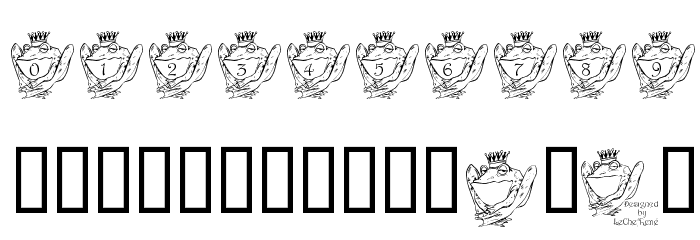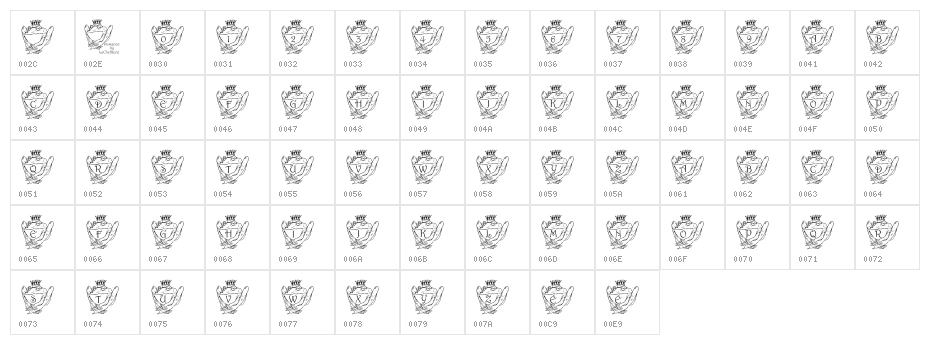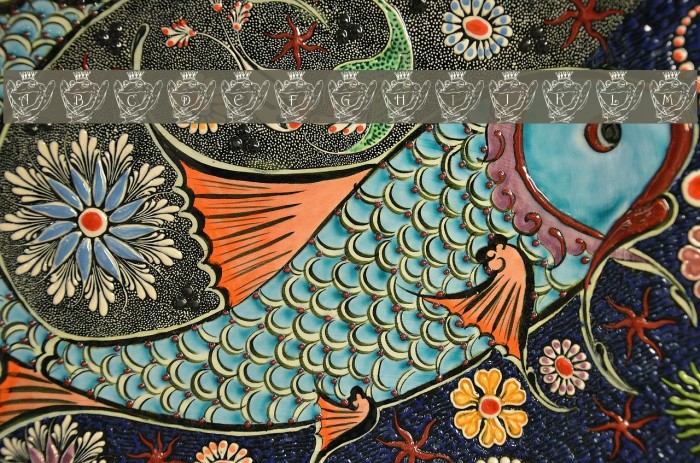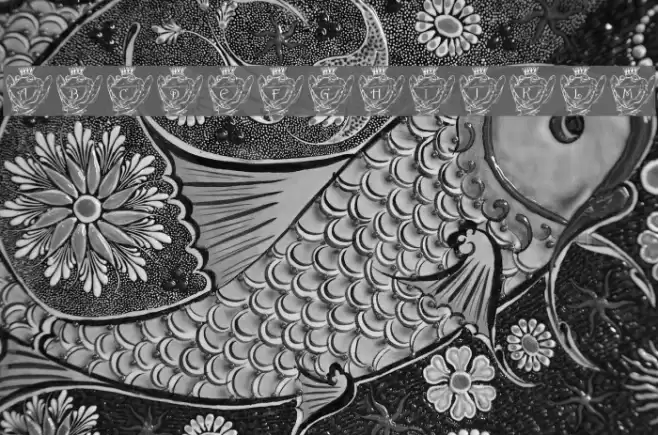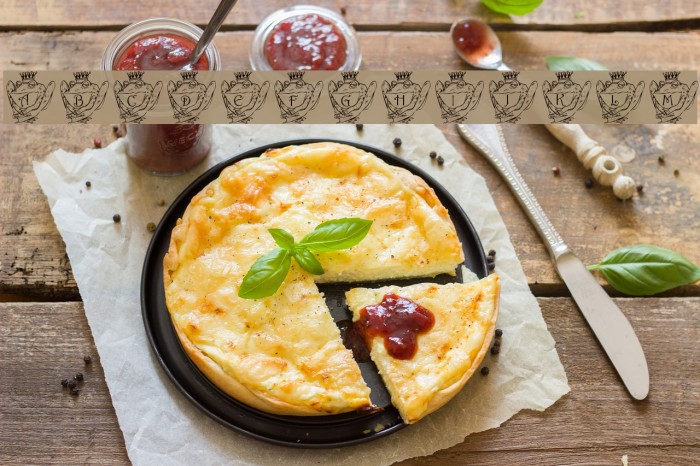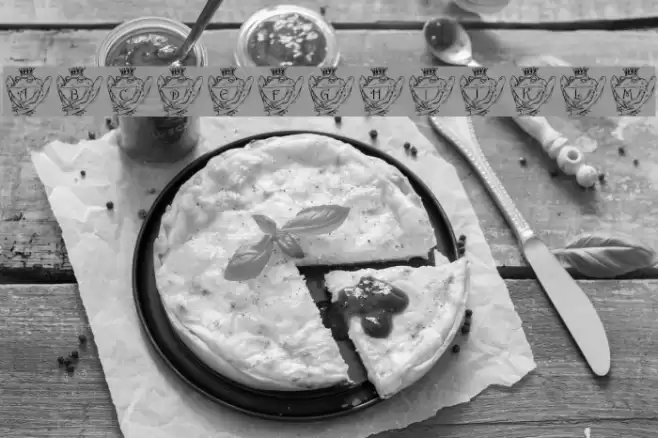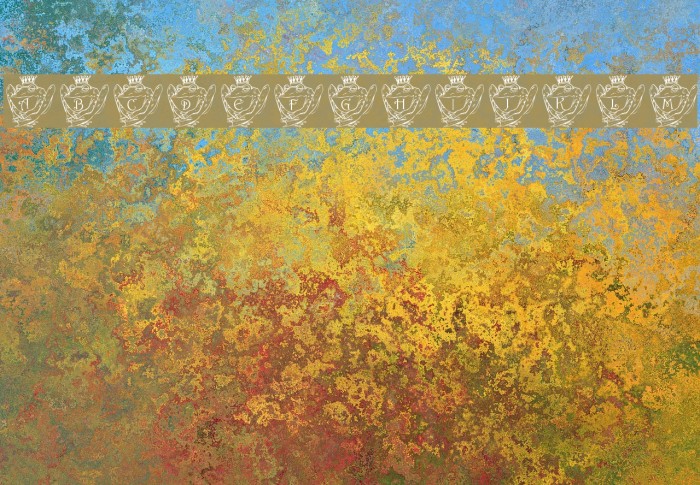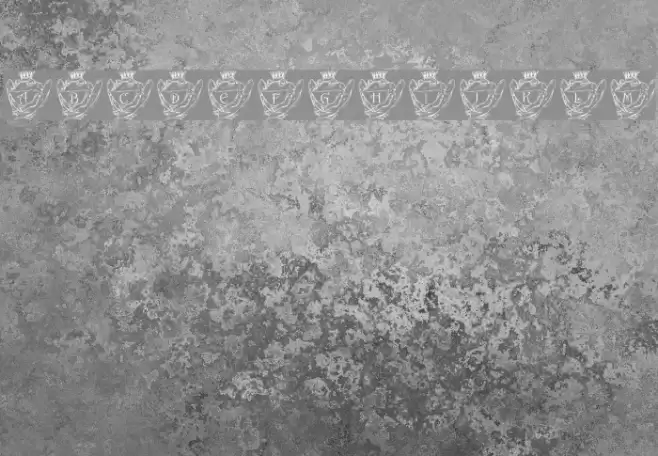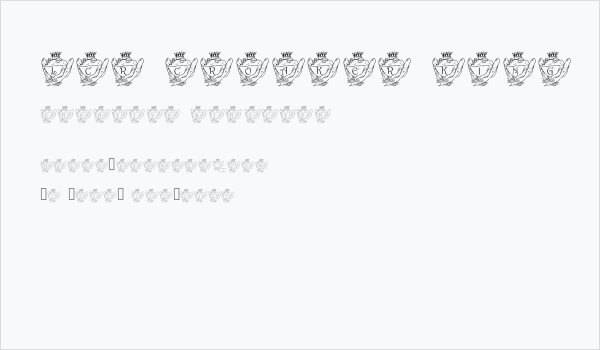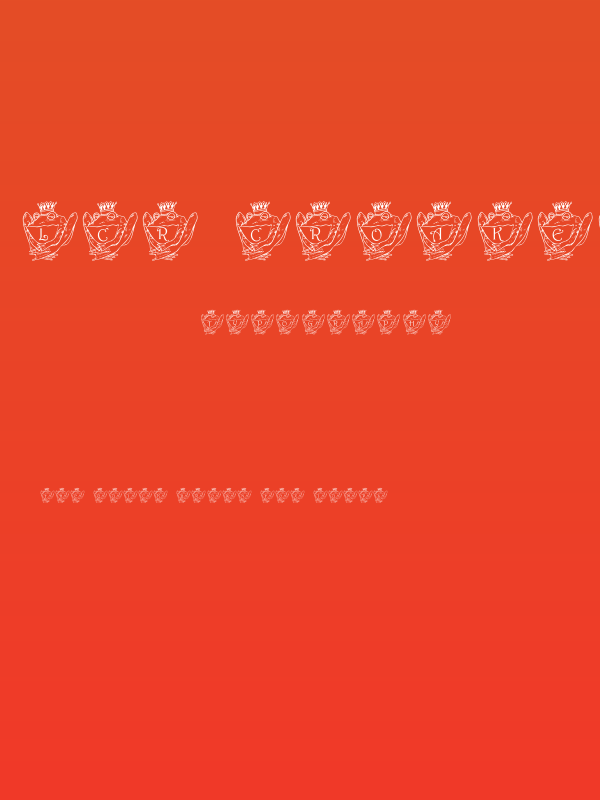
LCR Croaker King Font
LCR Croaker King Description
This font features a whimsical and decorative style, with each character encased within a detailed illustration of a crowned frog. The design is playful and unique, making it stand out as a novelty typeface. The characters are consistent in their artistic presentation, maintaining a uniformity that ties the entire set together. The font includes both uppercase and lowercase letters, numbers, and a selection of special characters, all following the same creative theme. The intricate design of each character suggests a hand-drawn quality, adding to its charm and appeal.
| Use Case | Logos, Headlines, Themed Designs |
| Proposed Projects | Ideal for children's books, playful branding, greeting cards, and themed event invitations. |